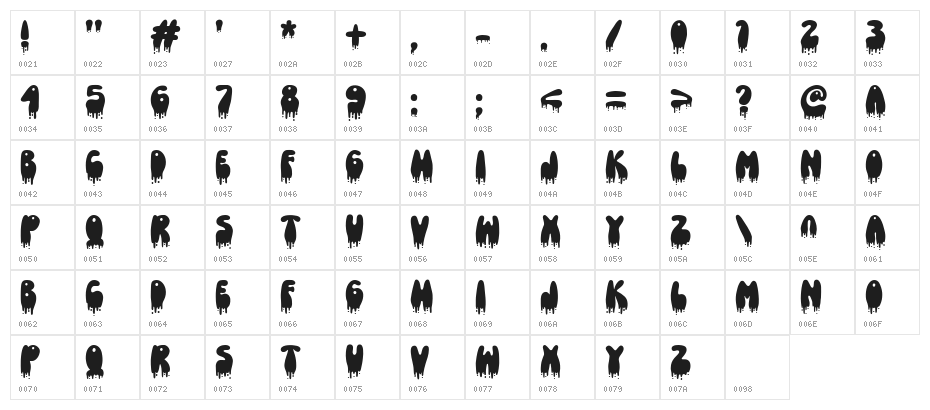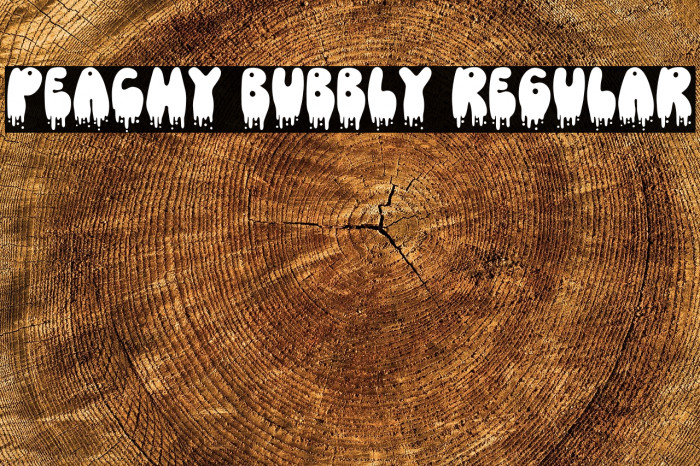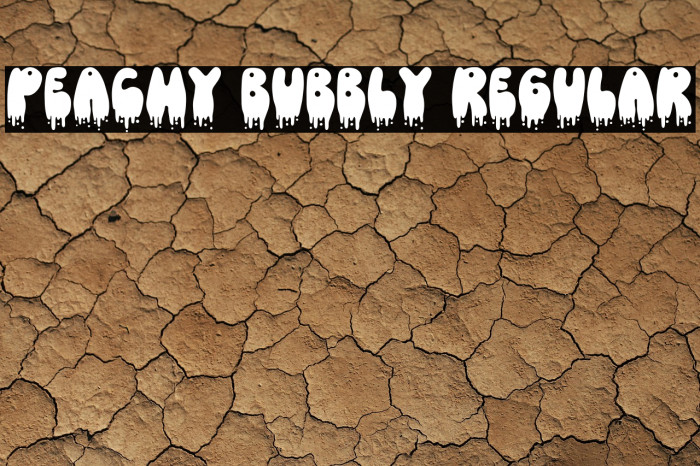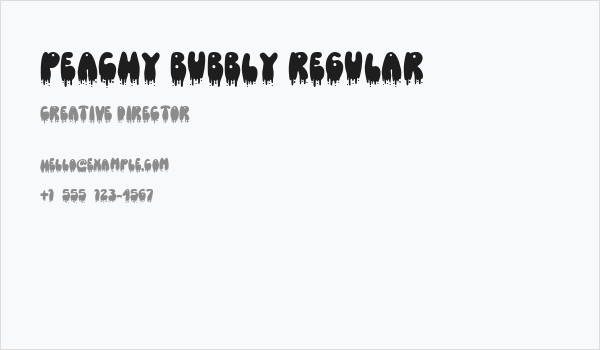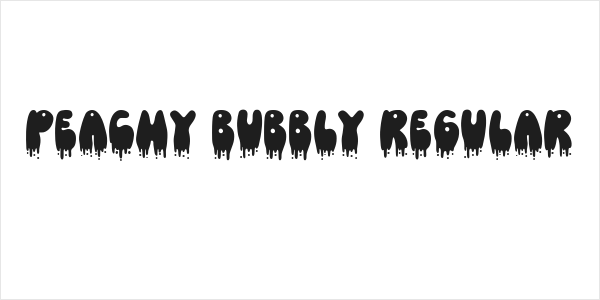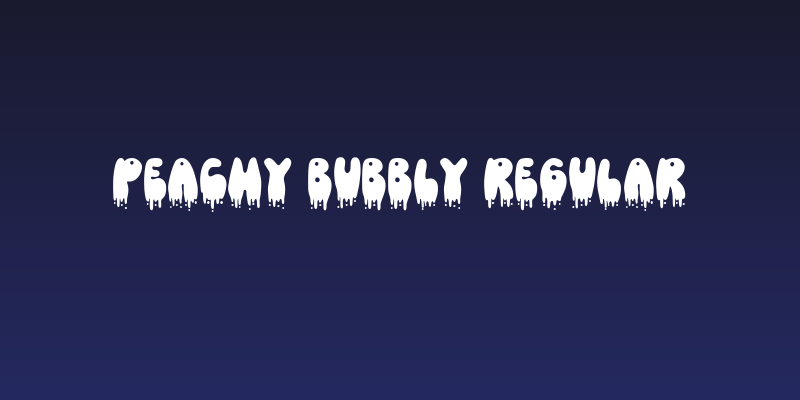
Peachy Bubbly Regular Font
Peachy Bubbly Regular Description
This playful and whimsical font features a unique dripping effect that gives each character a melting appearance. The bold, rounded letters are reminiscent of a bubbly, liquid form, creating a fun and dynamic visual impact. The uppercase and lowercase letters maintain a consistent style, with the drips adding a touch of unpredictability and creativity. The numbers and special characters follow the same design, ensuring a cohesive look across all elements. This font's distinctive style makes it perfect for projects that require a bold and eye-catching typeface.
| Proposed Projects | Ideal for Halloween-themed designs, children's book covers, playful branding, or event posters. |